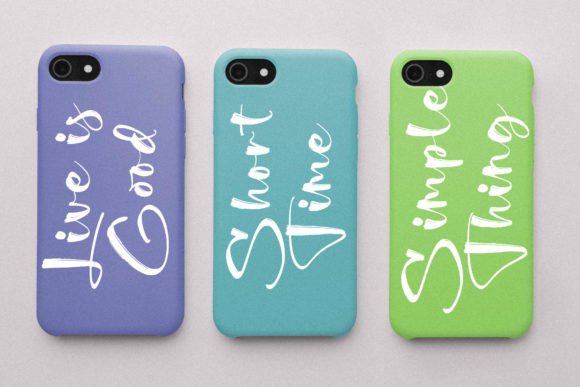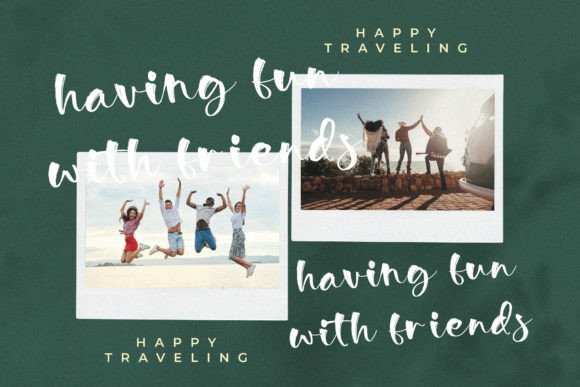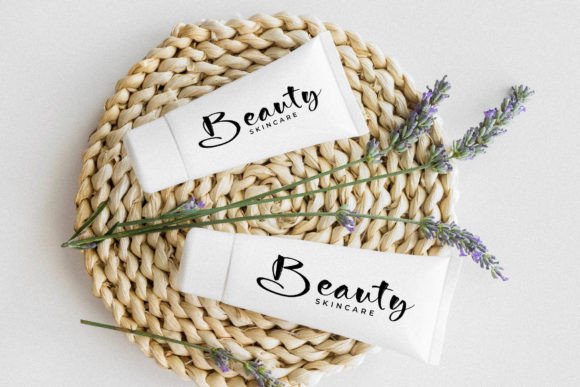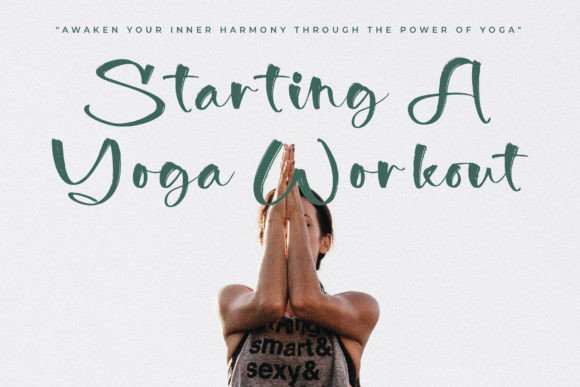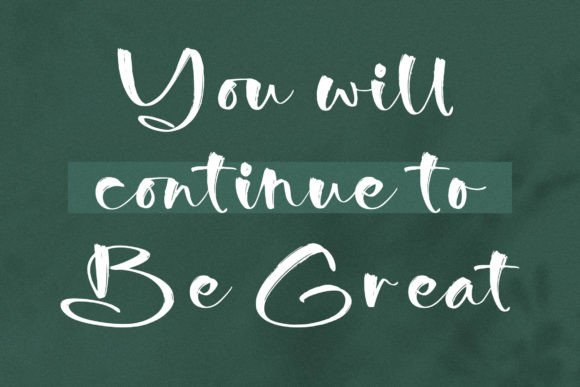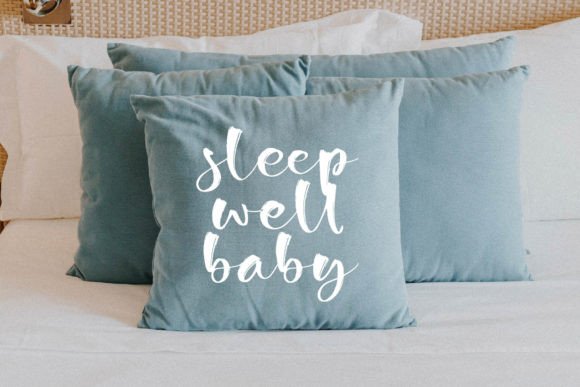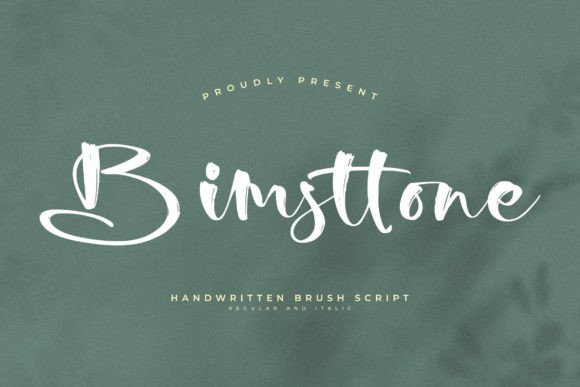
Bimsttone Font: The Perfect Handwritten Brush Script for Your Design Projects
Are you a designer or crafter looking for a beautiful and unique font to elevate your projects? Look no further than Bimsttone, a stunning handwritten brush script that’s perfect for a wide range of applications. From logos and branding projects to homeware designs, product packaging, and more, Bimsttone is the ideal choice for anyone seeking a touch of elegance and sophistication.
What is Bimsttone Font?
Bimsttone is a carefully crafted handwritten brush script font that’s designed to add a personal and artistic touch to your projects. With its smooth, flowing lines and delicate brushstrokes, Bimsttone exudes a sense of warmth and character that’s hard to find in digital fonts. Whether you’re working on a logo, a poster, or a product label, Bimsttone is sure to make your design stand out.
What Can I Use Bimsttone Font For?
The versatility of Bimsttone is one of its greatest strengths. This beautiful font can be used for a wide range of projects, including:
• Logos and branding projects: Create a lasting impression with a custom logo that showcases your brand’s personality.
• Homeware designs: Add a touch of elegance to your home decor with Bimsttone-inspired designs on mugs, vases, and more.
• Product packaging: Stand out on store shelves with eye-catching packaging that features Bimsttone.
• Mugs and ceramics: Create one-of-a-kind coffee mugs, plates, and other ceramics with Bimsttone’s charming script.
• Quotes and posters: Add a touch of inspiration to your walls with beautifully designed quotes and posters featuring Bimsttone.
• Shopping bags and packaging: Elevate your brand’s shopping experience with custom bags and packaging that showcase Bimsttone.
• T-shirts and apparel: Create stunning designs for t-shirts, hoodies, and other apparel with Bimsttone’s unique script.
• Book covers and journals: Add a touch of sophistication to your book covers and journals with Bimsttone’s elegant font.
• Name cards and invitation cards: Create beautiful name cards and invitation cards that showcase Bimsttone’s charm.
• Greeting cards and labels: Add a personal touch to your greeting cards and labels with Bimsttone’s lovely script.
• Photography and watermark: Use Bimsttone as a watermark for your photos or as a design element in your photography projects.
• Special events: Create stunning designs for special events, such as weddings, birthdays, and anniversaries, with Bimsttone.
Why Choose Bimsttone Font?
So why choose Bimsttone over other fonts? Here are just a few reasons why Bimsttone stands out:
• Unique and handmade: Bimsttone is a carefully crafted font that’s been designed to mimic the look and feel of handwritten brush script.
• Versatile: Bimsttone can be used for a wide range of projects, from logos and branding to homeware designs and product packaging.
• Elegant and sophisticated: Bimsttone exudes a sense of elegance and sophistication that’s perfect for high-end designs.
• Easy to read: Despite its artistic nature, Bimsttone is surprisingly easy to read, making it perfect for designs that require a clear and legible font.
In conclusion, Bimsttone is a beautiful and versatile handwritten brush script font that’s perfect for designers and crafters looking to add a touch of elegance and sophistication to their projects. With its wide range of uses, unique and handmade design, and ease of use, Bimsttone is an excellent choice for anyone seeking a high-quality font that will elevate their designs to the next level. So why wait? Download Bimsttone today and start creating stunning designs that showcase your creativity and style!